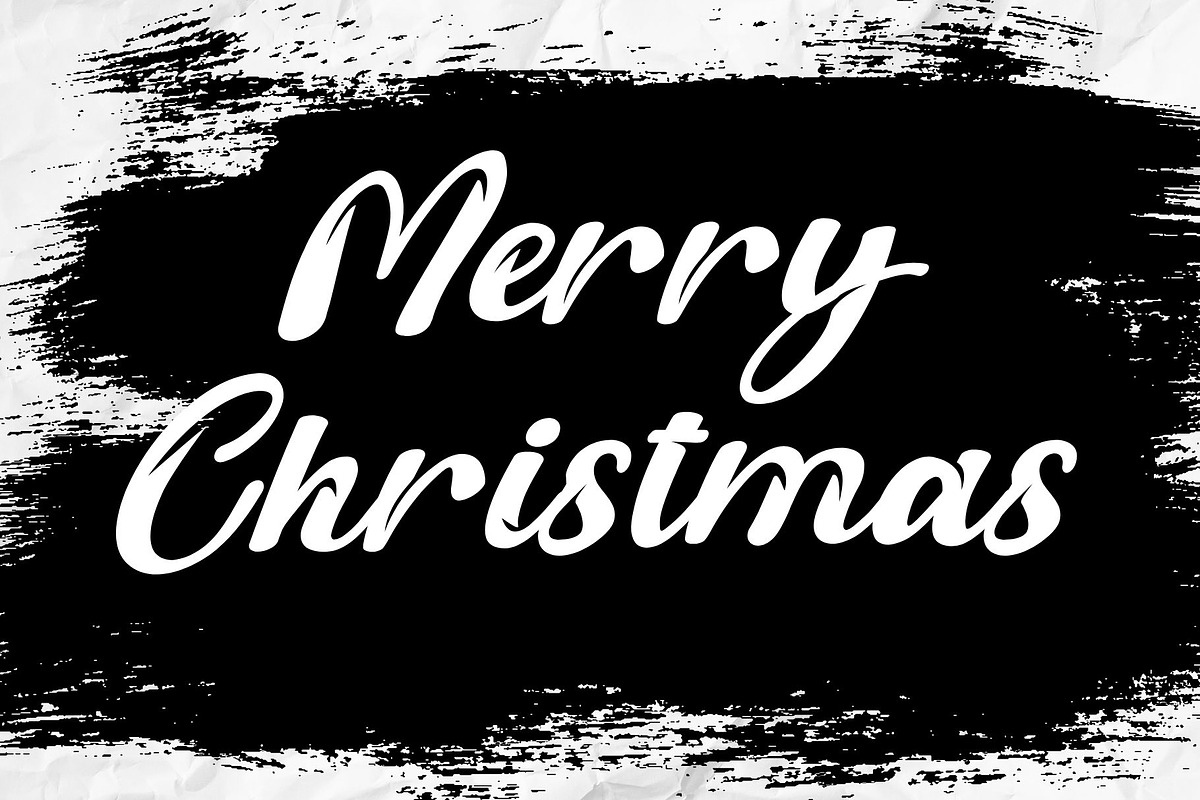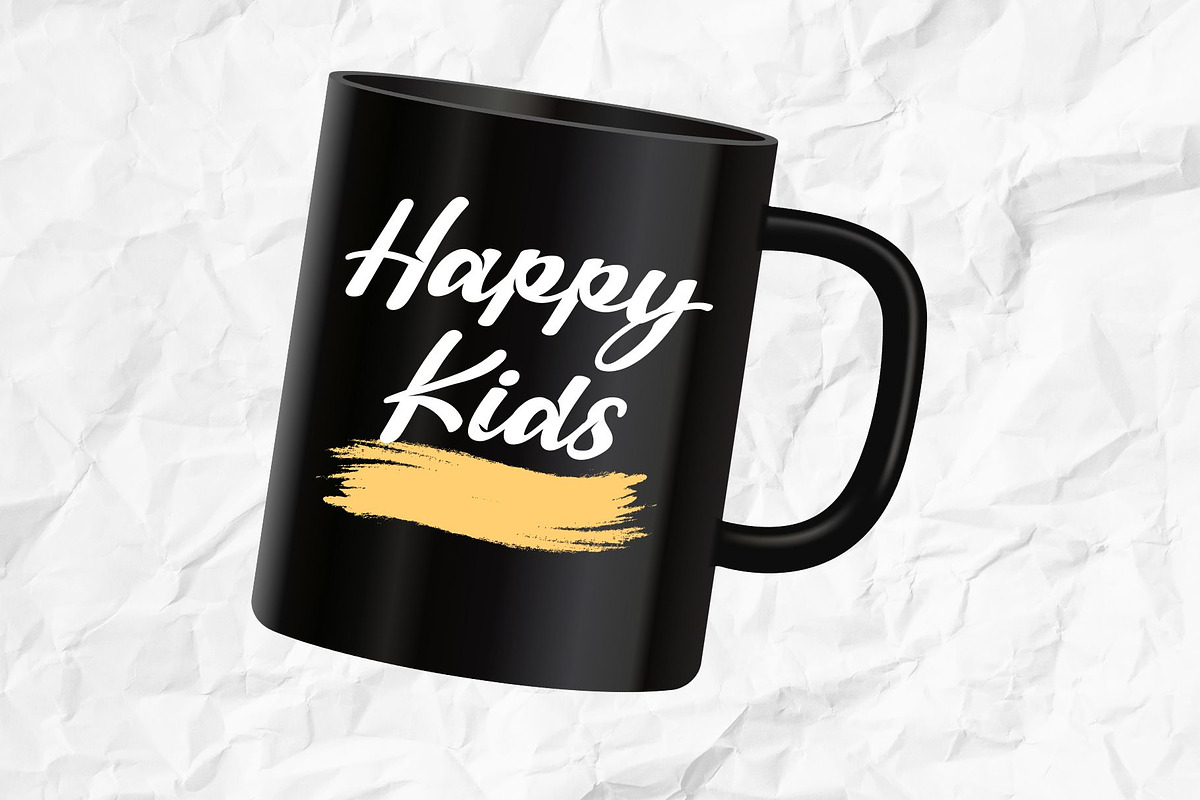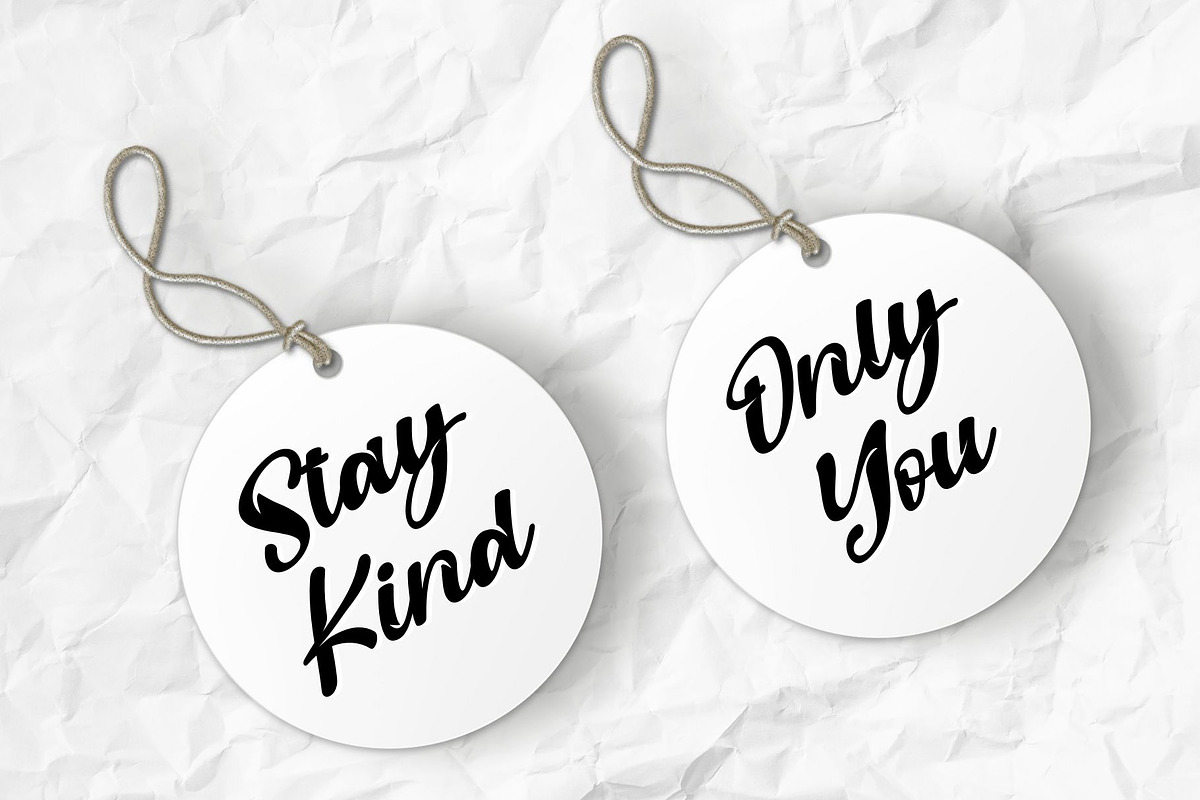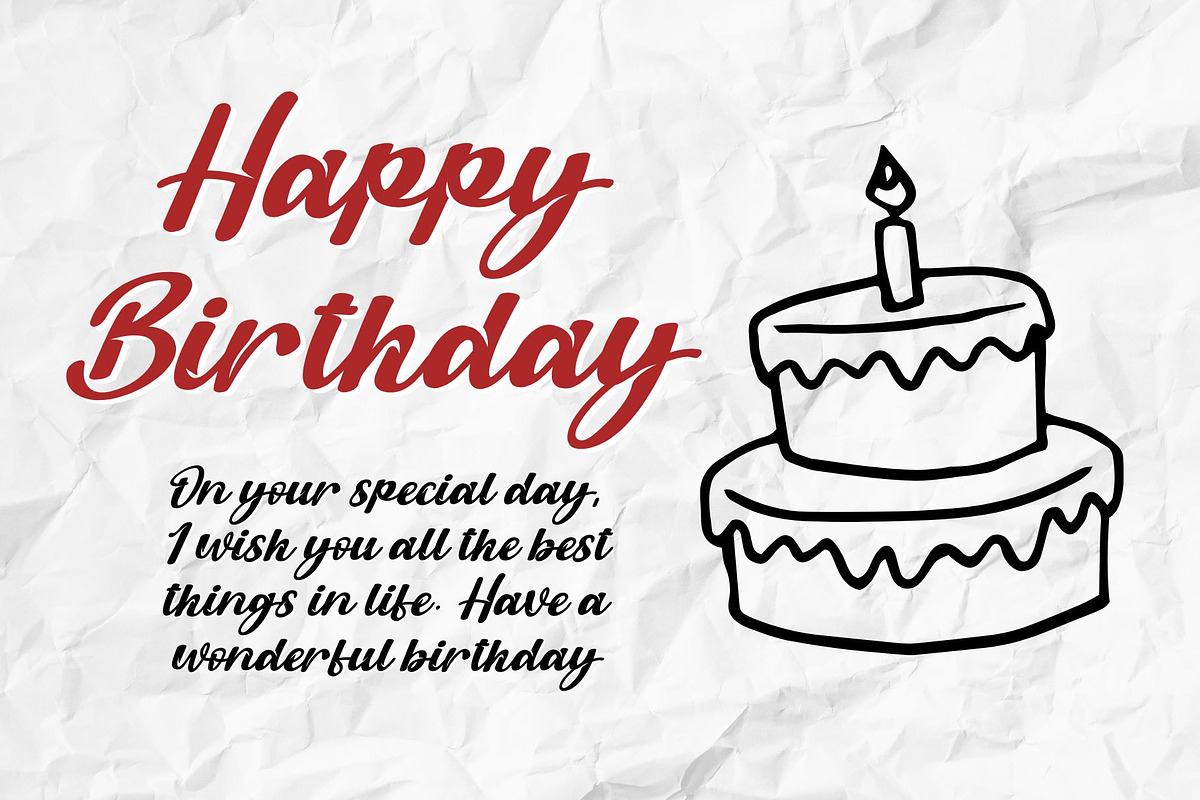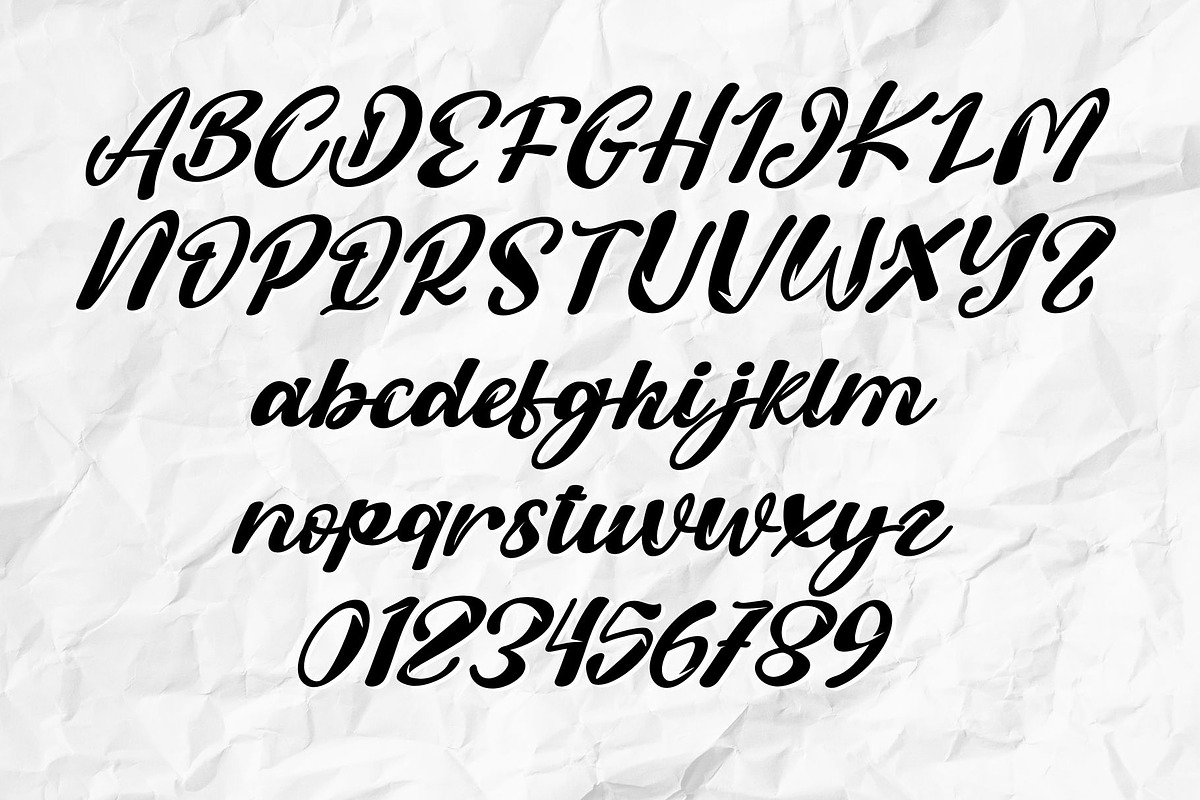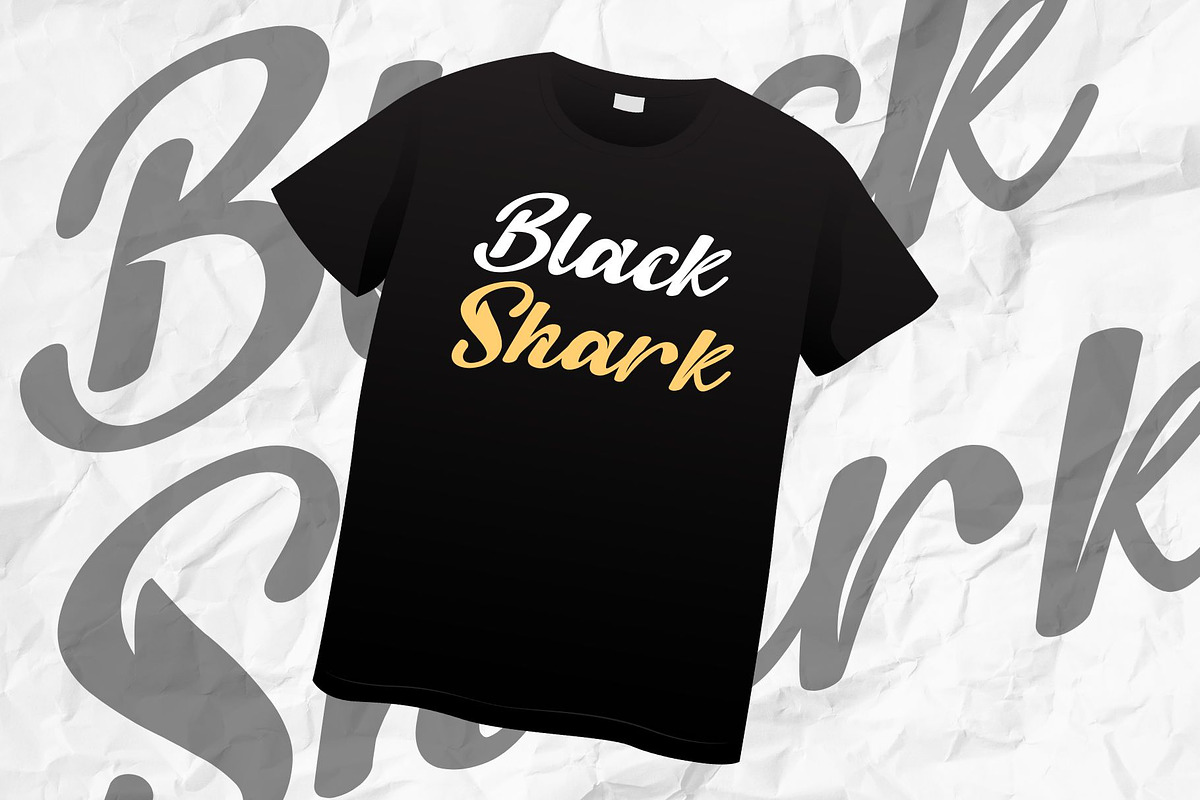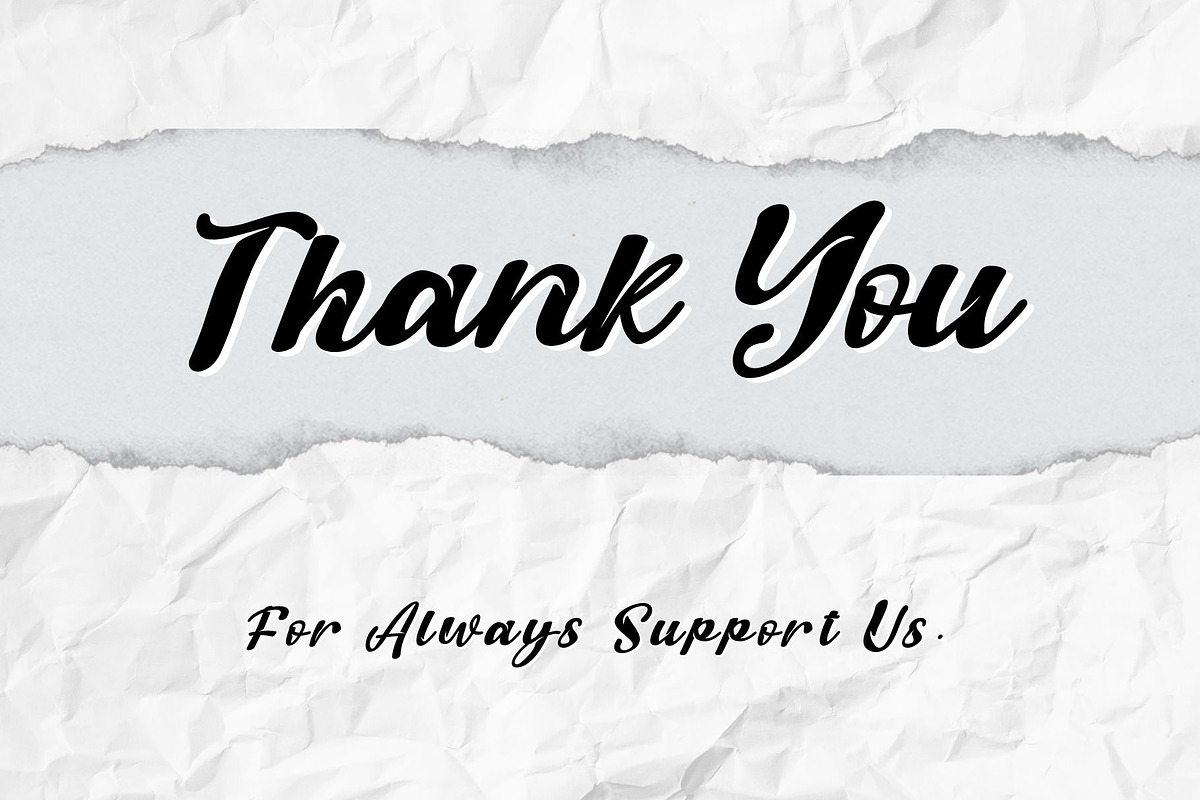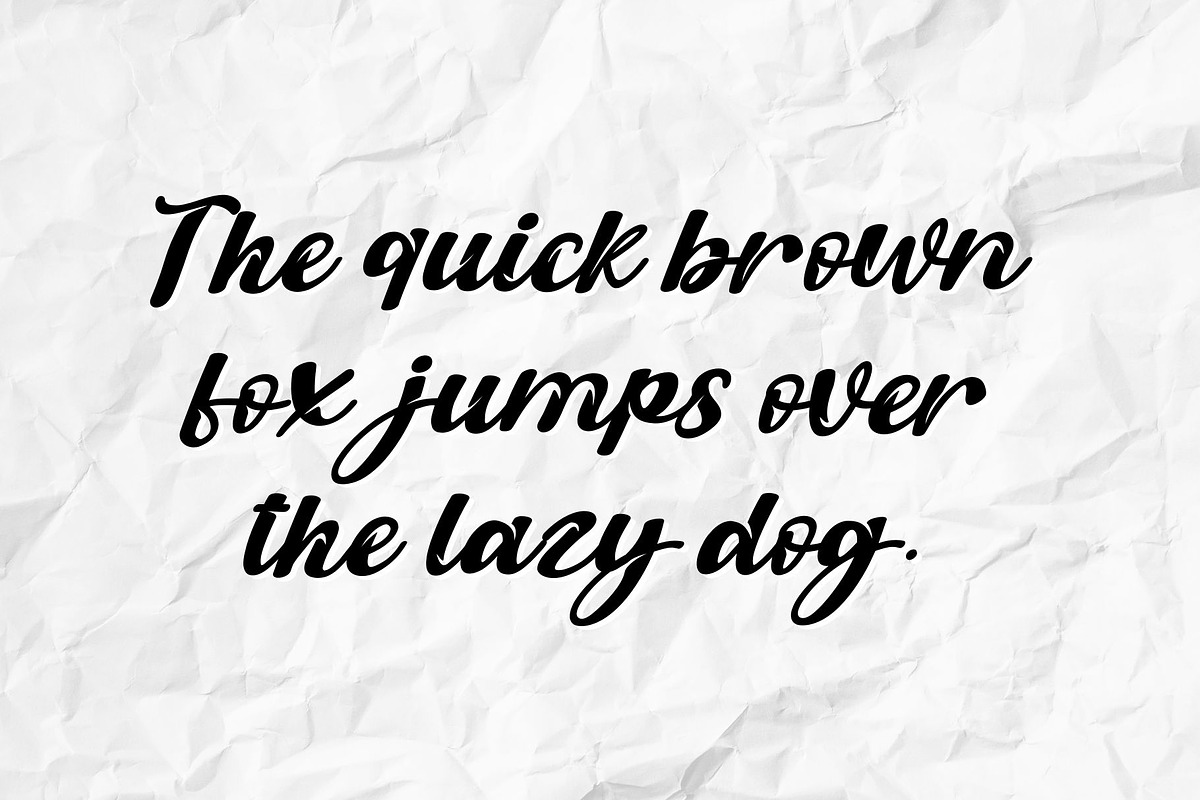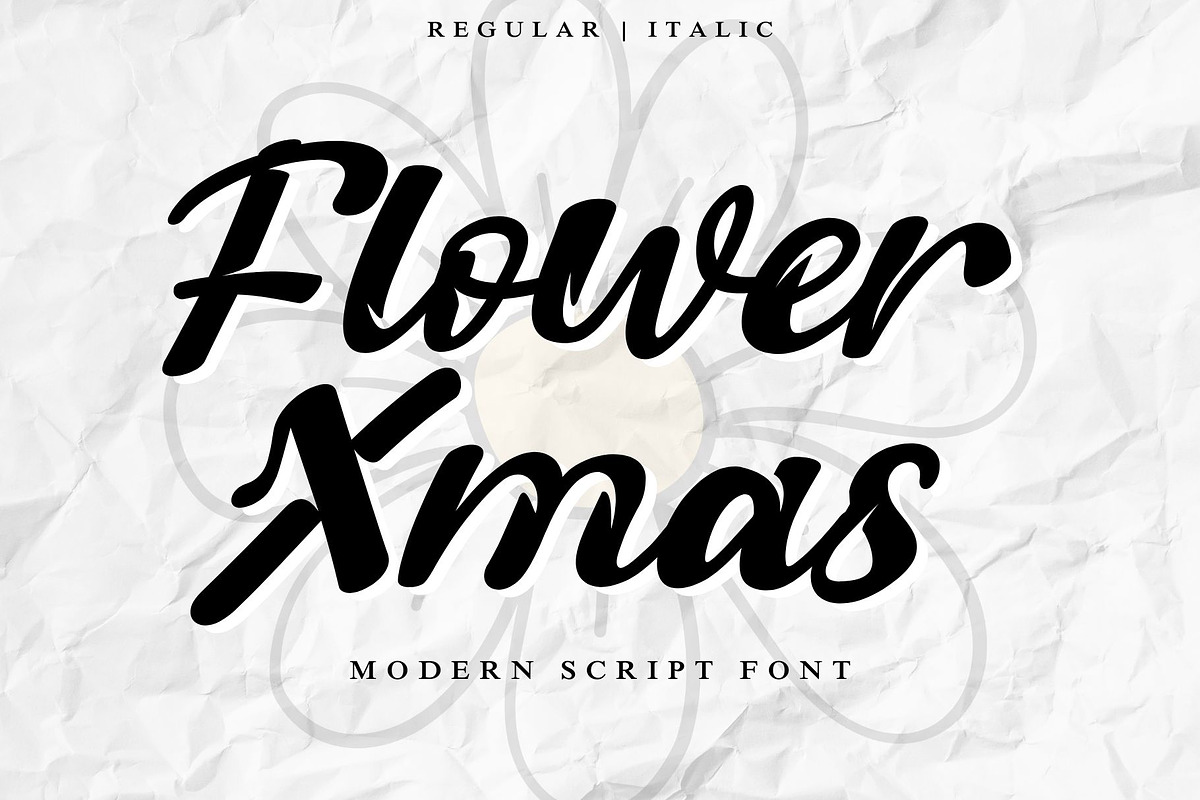
Flower Xmas
Experience the enchanting versatility of Flower Xmas, a modern script font, tailored to add an artistic touch to your design work. From glamorous wedding invitations and stylish logos to captivating headlines, it effortlessly elevates the elegance of every application. This all-around font can transform mundane t-shirts into fashion statements and breathe life into dull letterheads. Step up your signage sophistication or give your labels an elegant makeover with Flower Xmas. Spread eye-catching news, create compelling posters or design distinctive badges that leave a lasting impression. In the realm of typefaces, Flower Xmas truly sets a high bar for versatility and elegance.